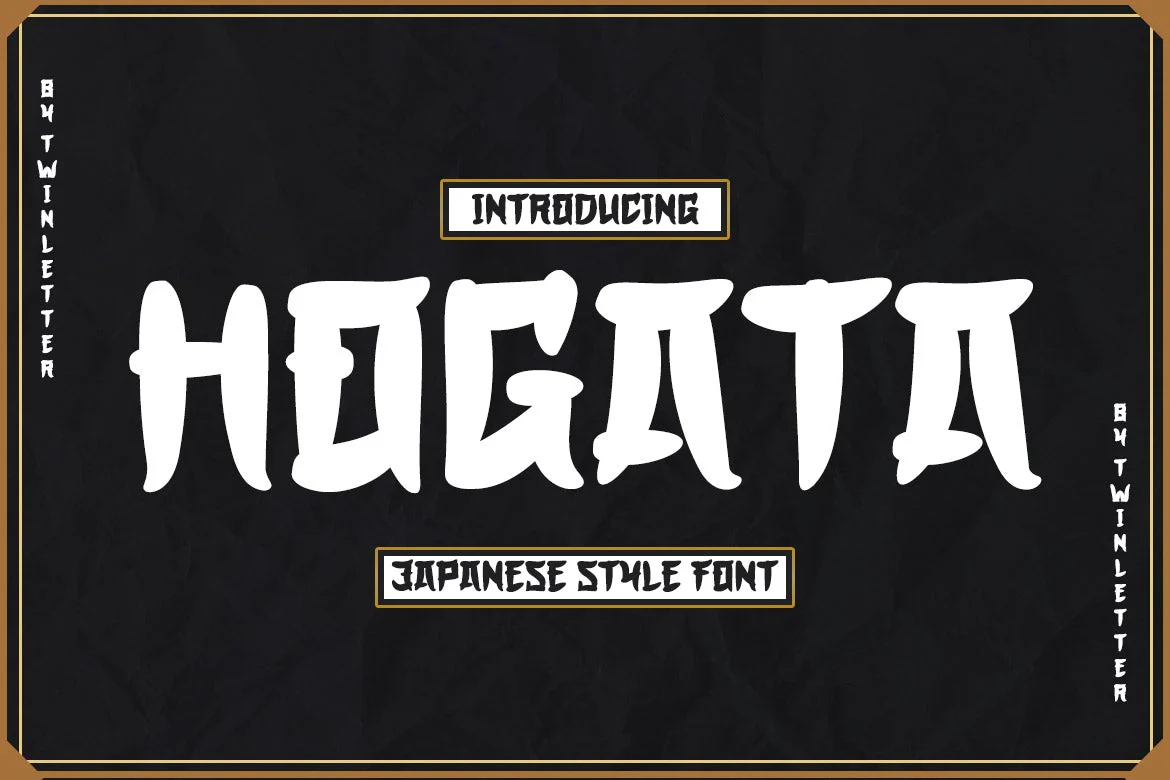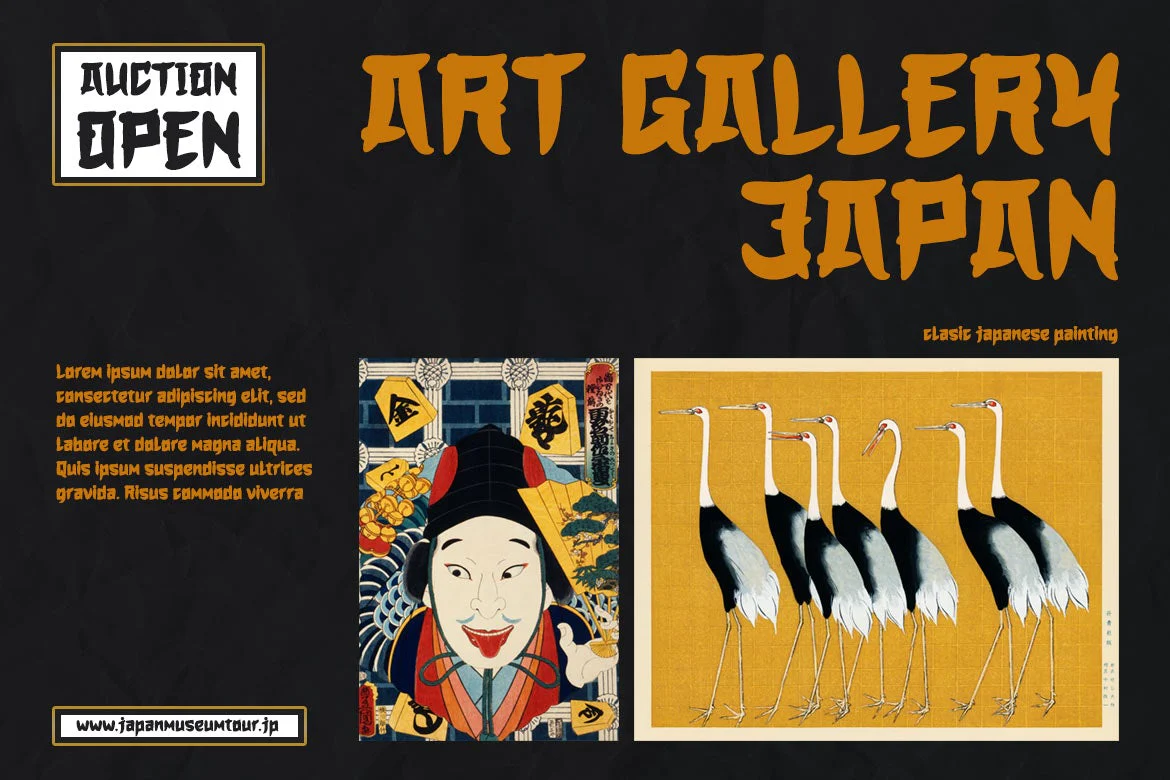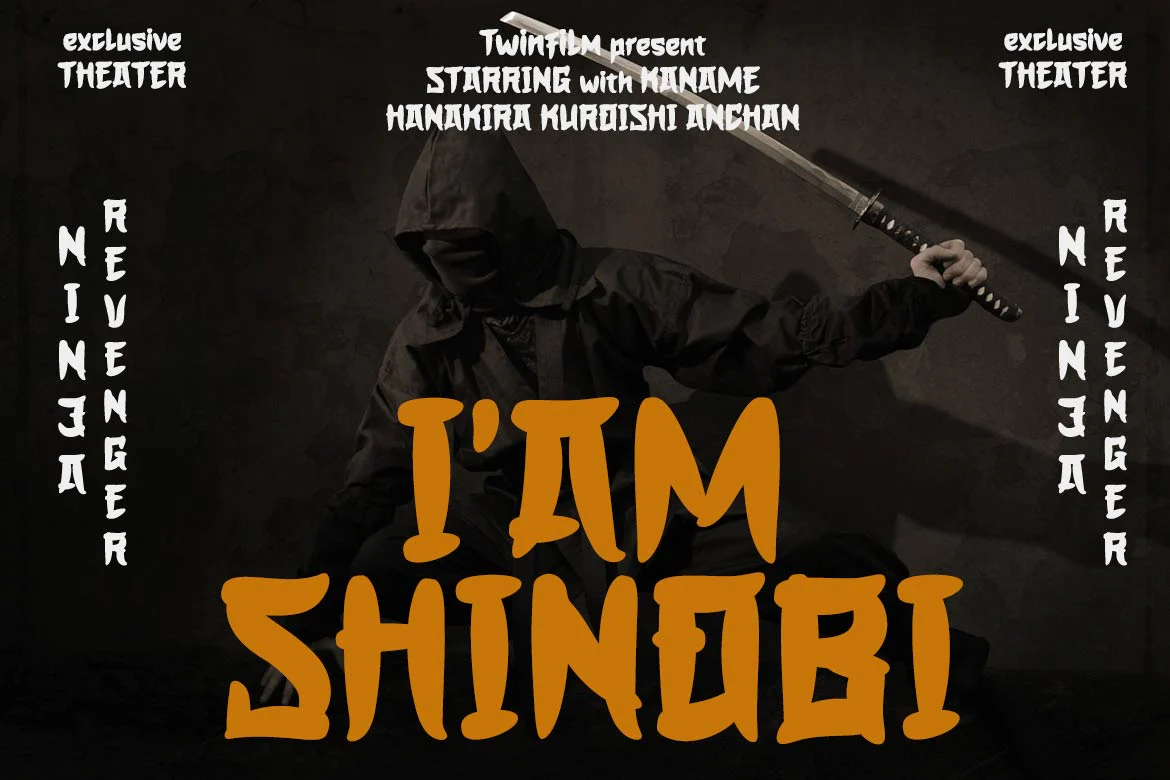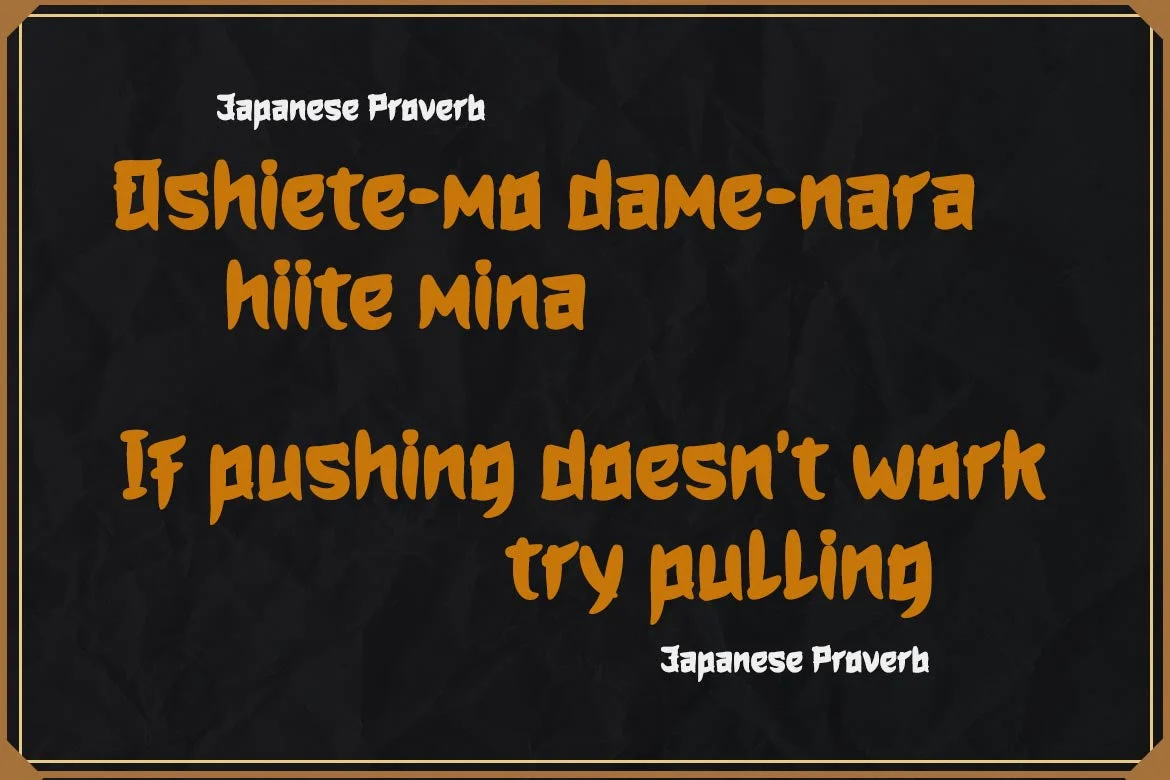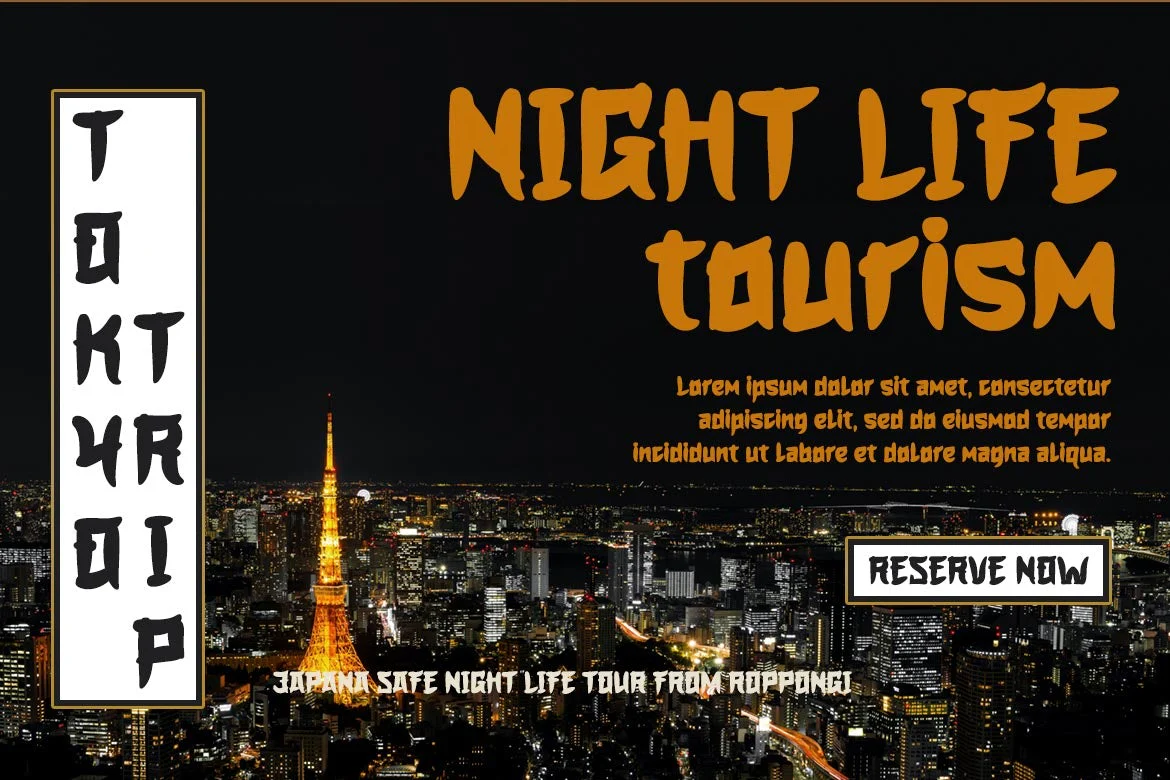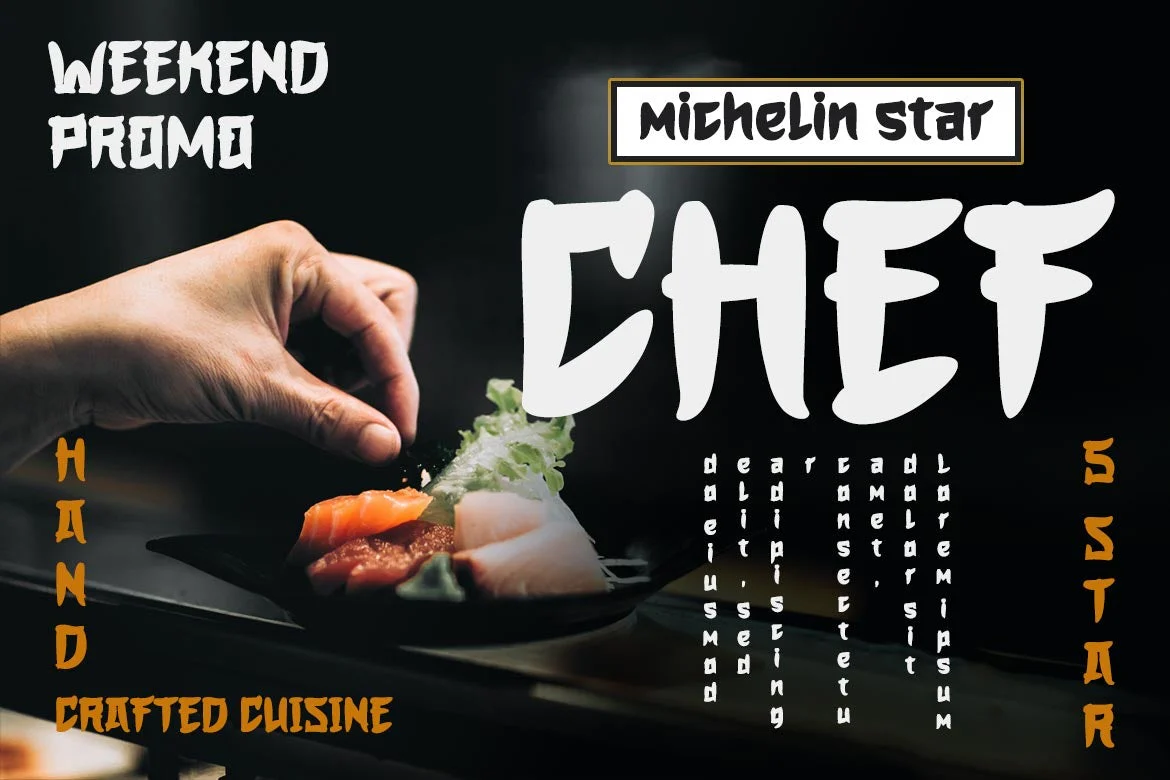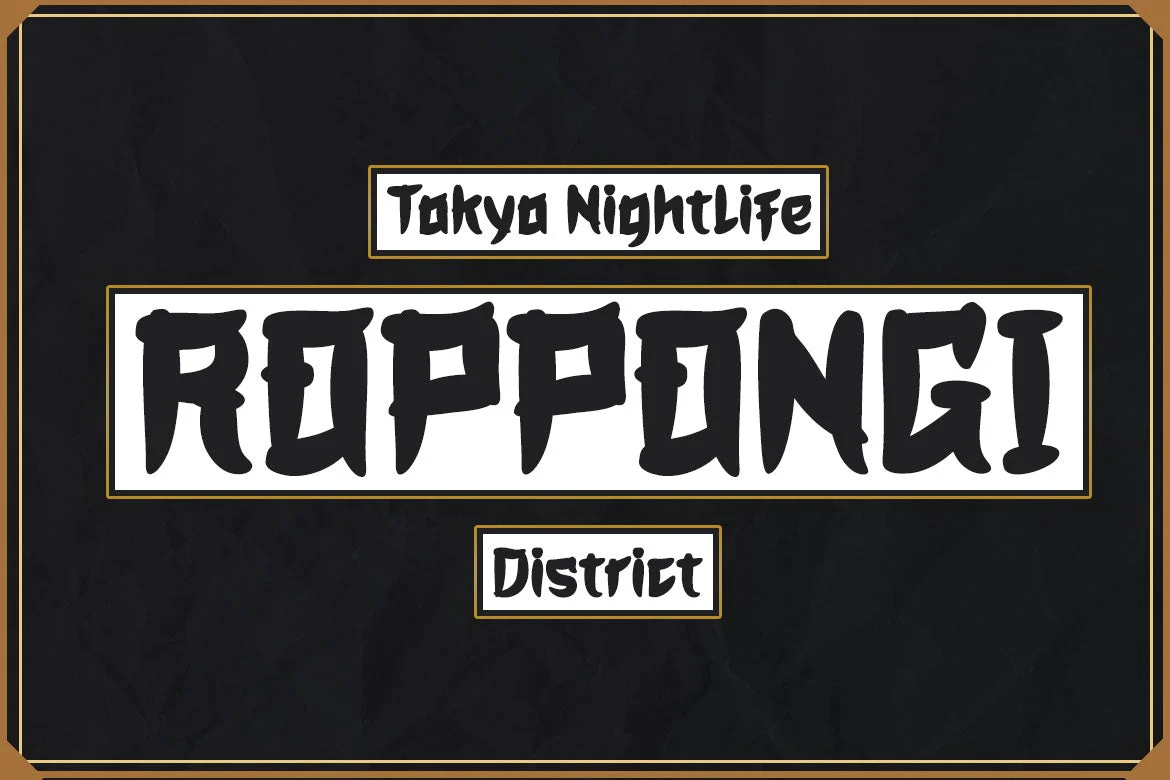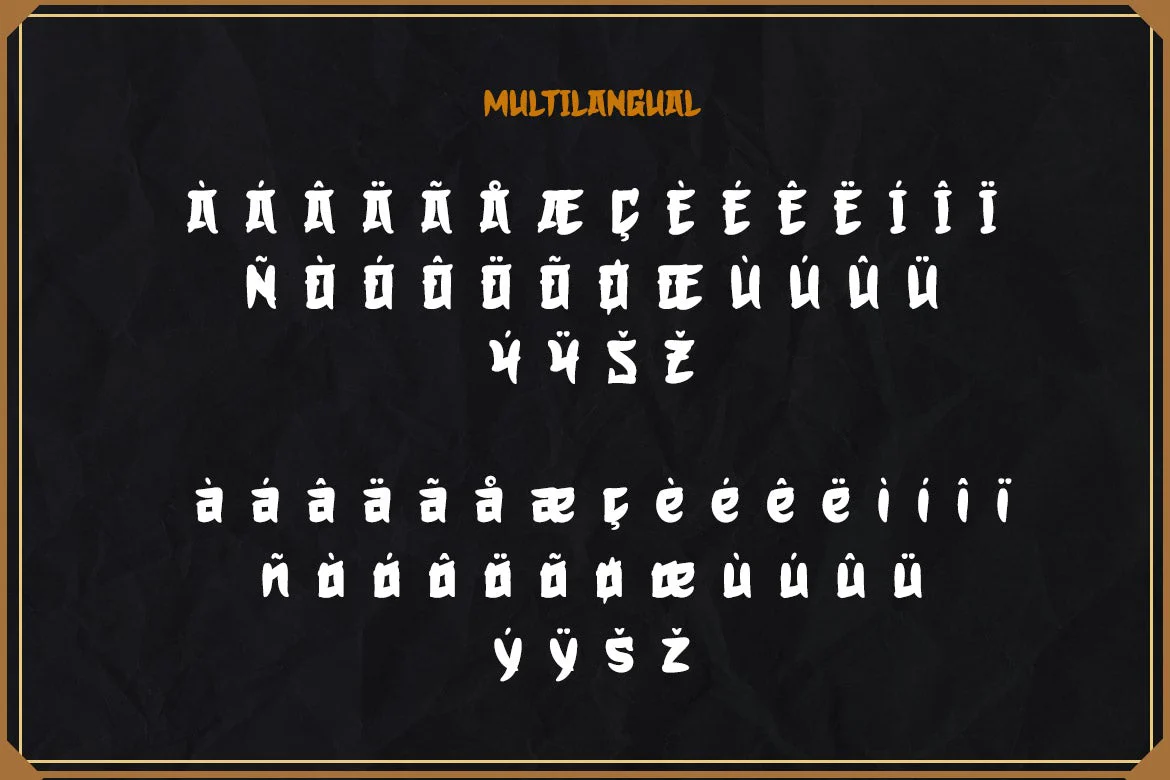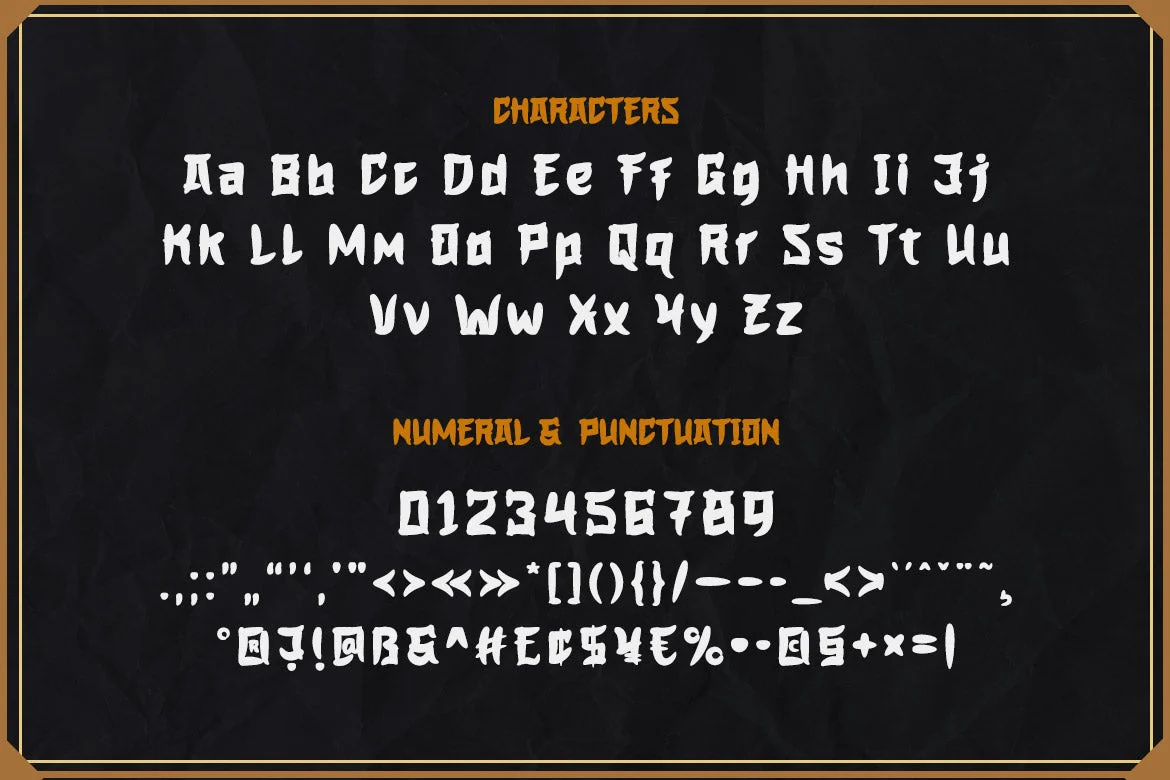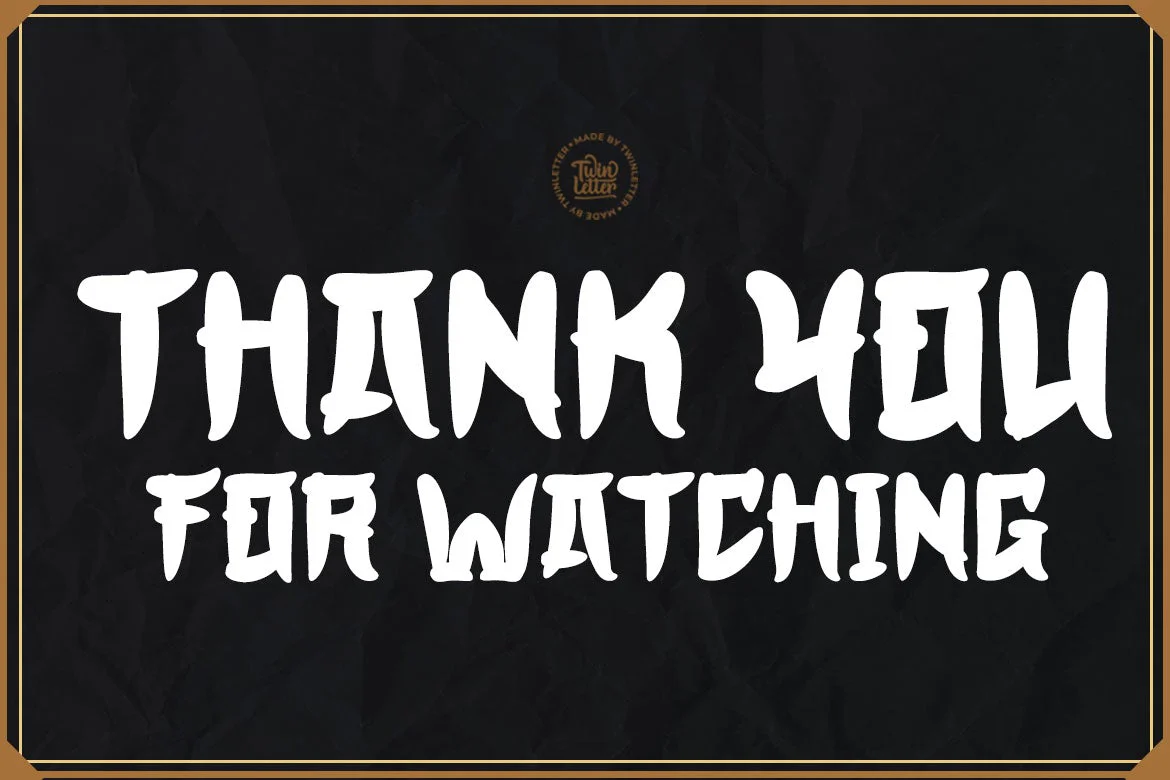
HOGATA - Japanese style font
Present Hogata, our newest font.
A typeface with a Japanese theme and an Asian subtlety is ideal for projects with Asian cultural nuances, as well as all projects that require a different and unique impression while remaining pleasing to the eye. To create a beautiful graphic look, use this font.
Logotypes, food banners, branding, brochure, posters, movie titles, book titles, quotes, and more may all benefit from this font.
Of course, using this font in your various design projects will make them excellent and outstanding; many viewers are drawn to the striking and unusual graphic display.
Start utilizing this typeface in your projects to make them stand out.
Present Hogata, our newest font.
A typeface with a Japanese theme and an Asian subtlety is ideal for projects with Asian cultural nuances, as well as all projects that require a different and unique impression while remaining pleasing to the eye. To create a beautiful graphic look, use this font.
Logotypes, food banners, branding, brochure, posters, movie titles, book titles, quotes, and more may all benefit from this font.
Of course, using this font in your various design projects will make them excellent and outstanding; many viewers are drawn to the striking and unusual graphic display.
Start utilizing this typeface in your projects to make them stand out.